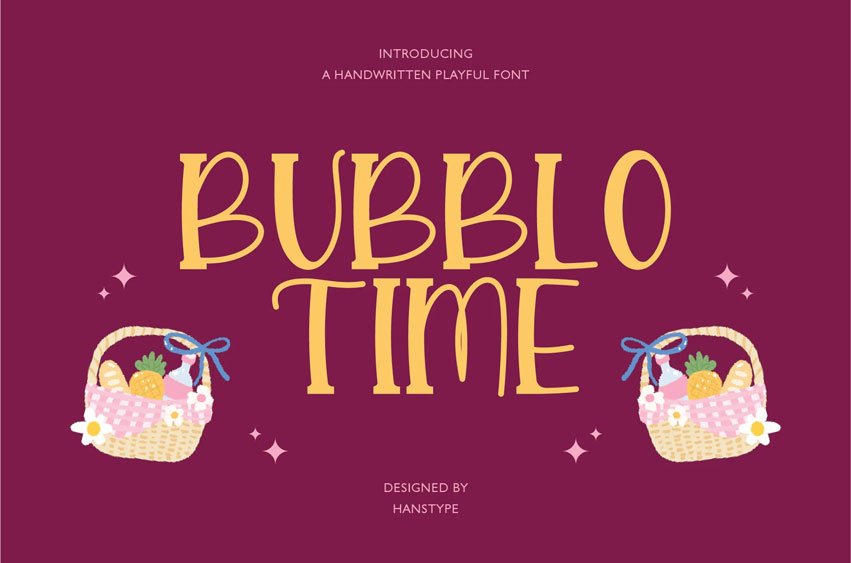
Bubblotime Font is a playful, bubbly font that exudes fun and positivity. Its rounded, soft edges and lively letterforms give it a charming, approachable appearance.
Perfect for designs that aim to be light-hearted and whimsical, Bubblotime adds a sense of playfulness to everything from children’s products to casual branding or event promotions.